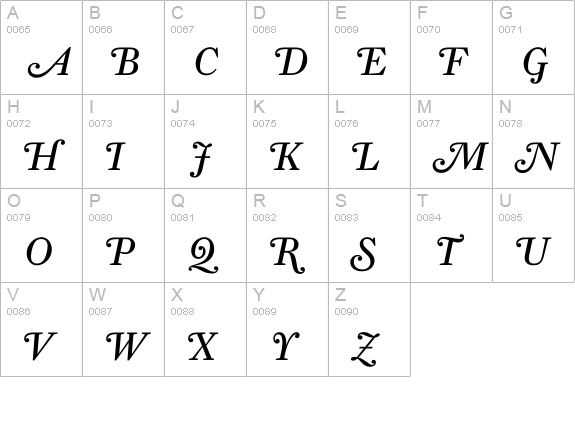
FarnhamDisplay-RegItalSwashAlt font is a stunning, elegant typeface that exudes sophistication and charm. With its intricate swash alternate characters, this font adds a touch of flair and personality to any design project. Perfect for luxury branding, wedding invitations, or editorial layouts, FarnhamDisplay-RegItalSwashAlt font is a versatile choice for those looking to make a statement with their typography. Best of all, this exquisite font is available for free download at FontsMarket.com. Whether you're a designer looking to elevate your work or a creative enthusiast searching for the perfect font for your next project, FarnhamDisplay-RegItalSwashAlt font is a must-have addition to your font library. Download it today and unleash your creativity with this beautiful typeface.